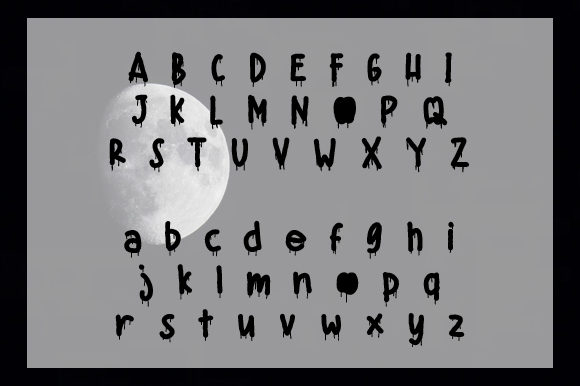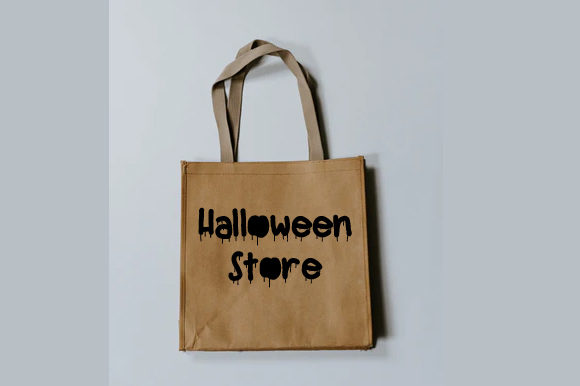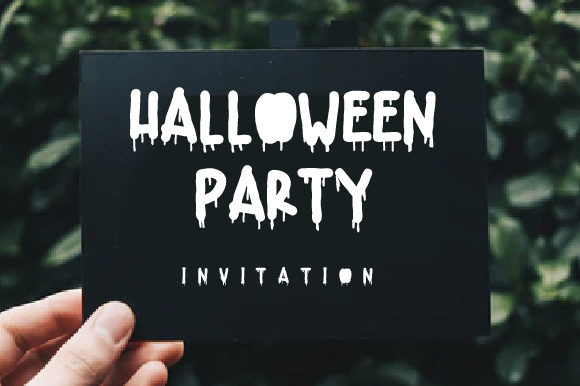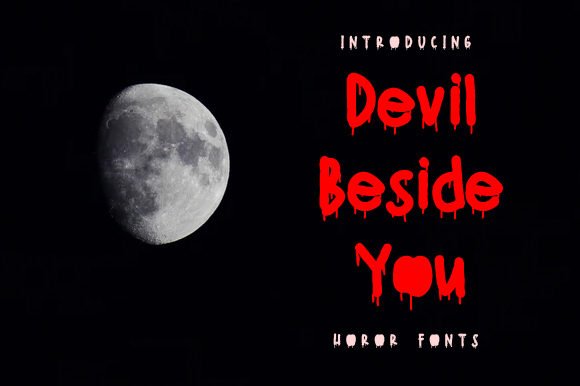
Introduction to Devil Beside You Font
Devil Beside You is a scary and dramatic display font.
It is ideal for each of your spooky designs or Halloween projects .